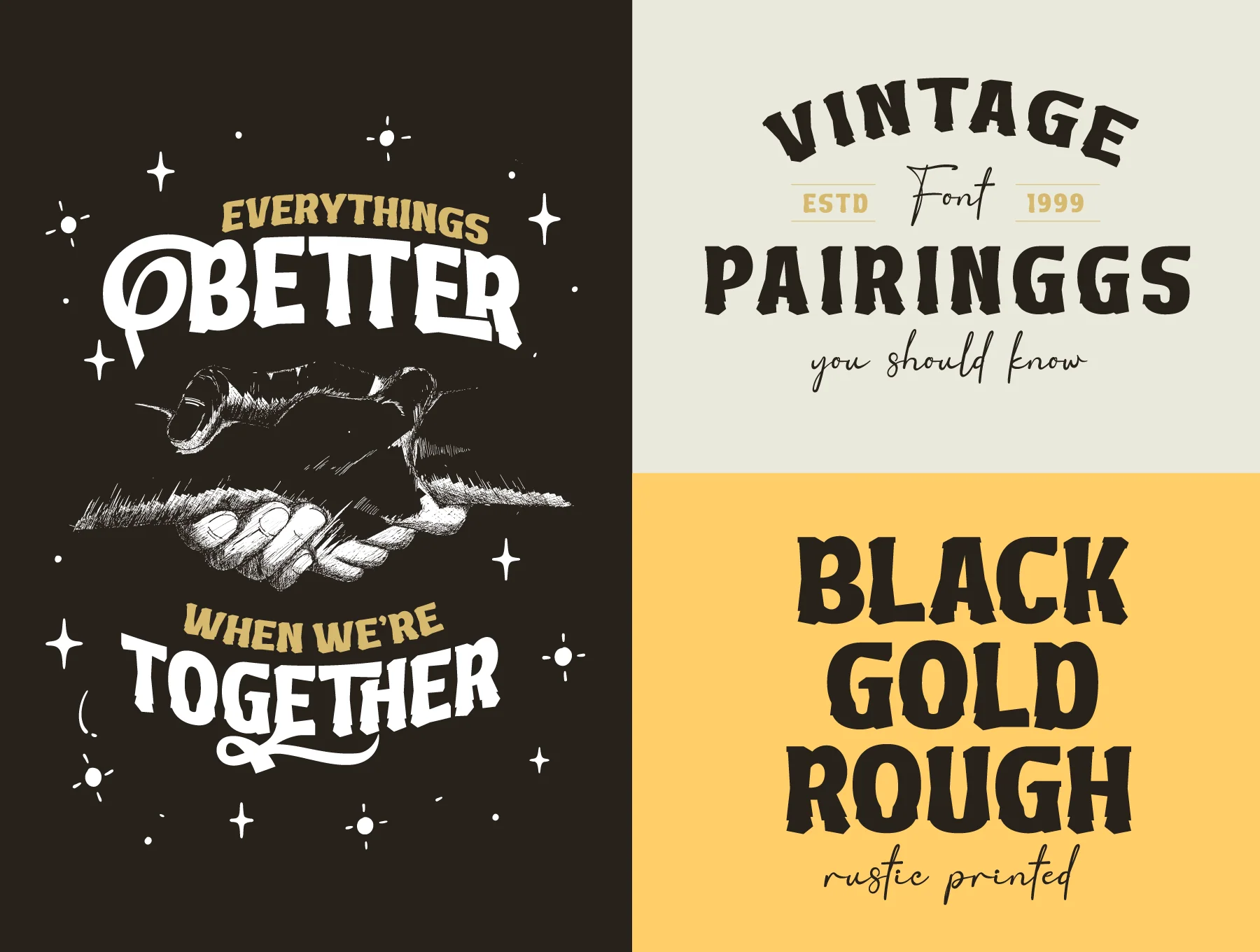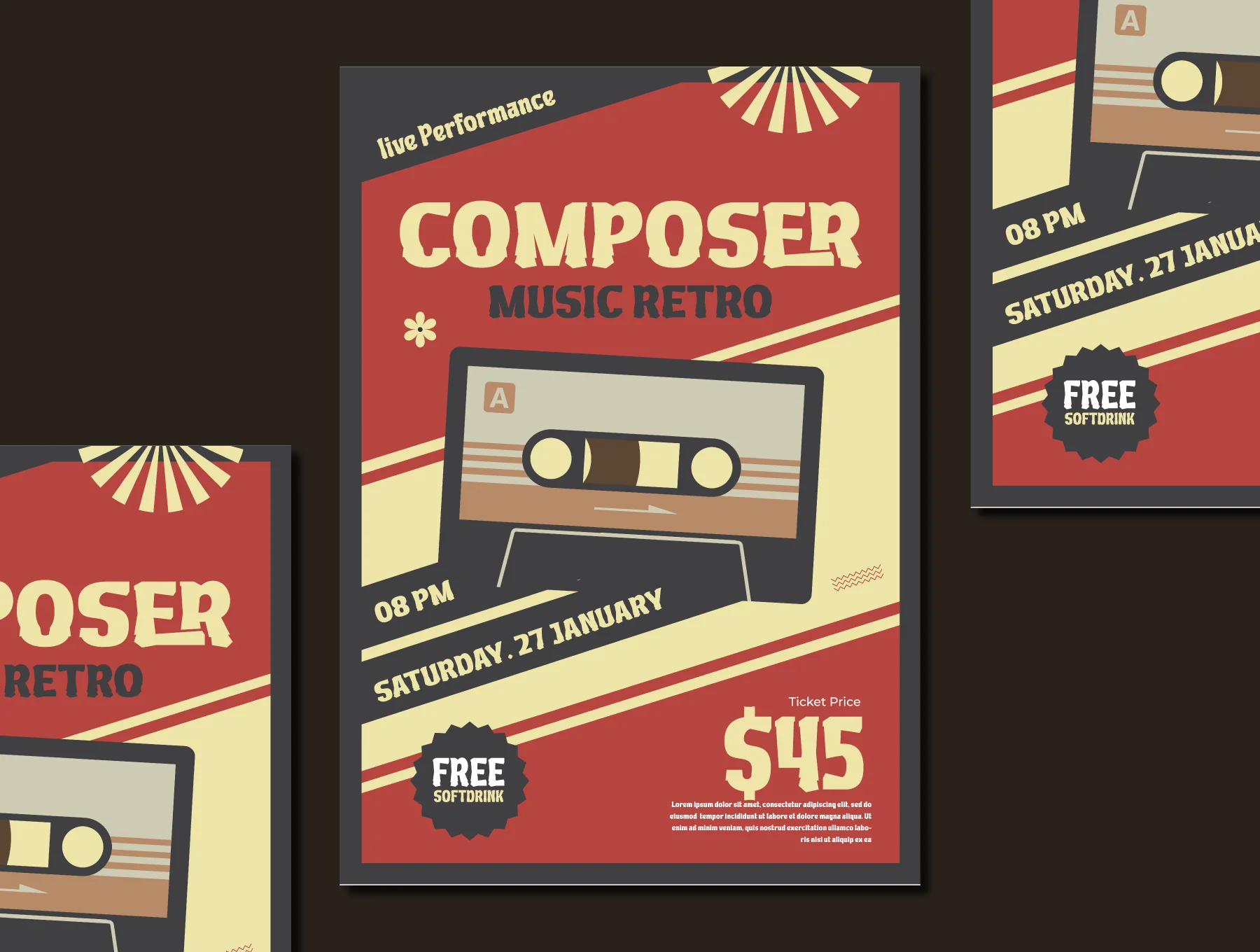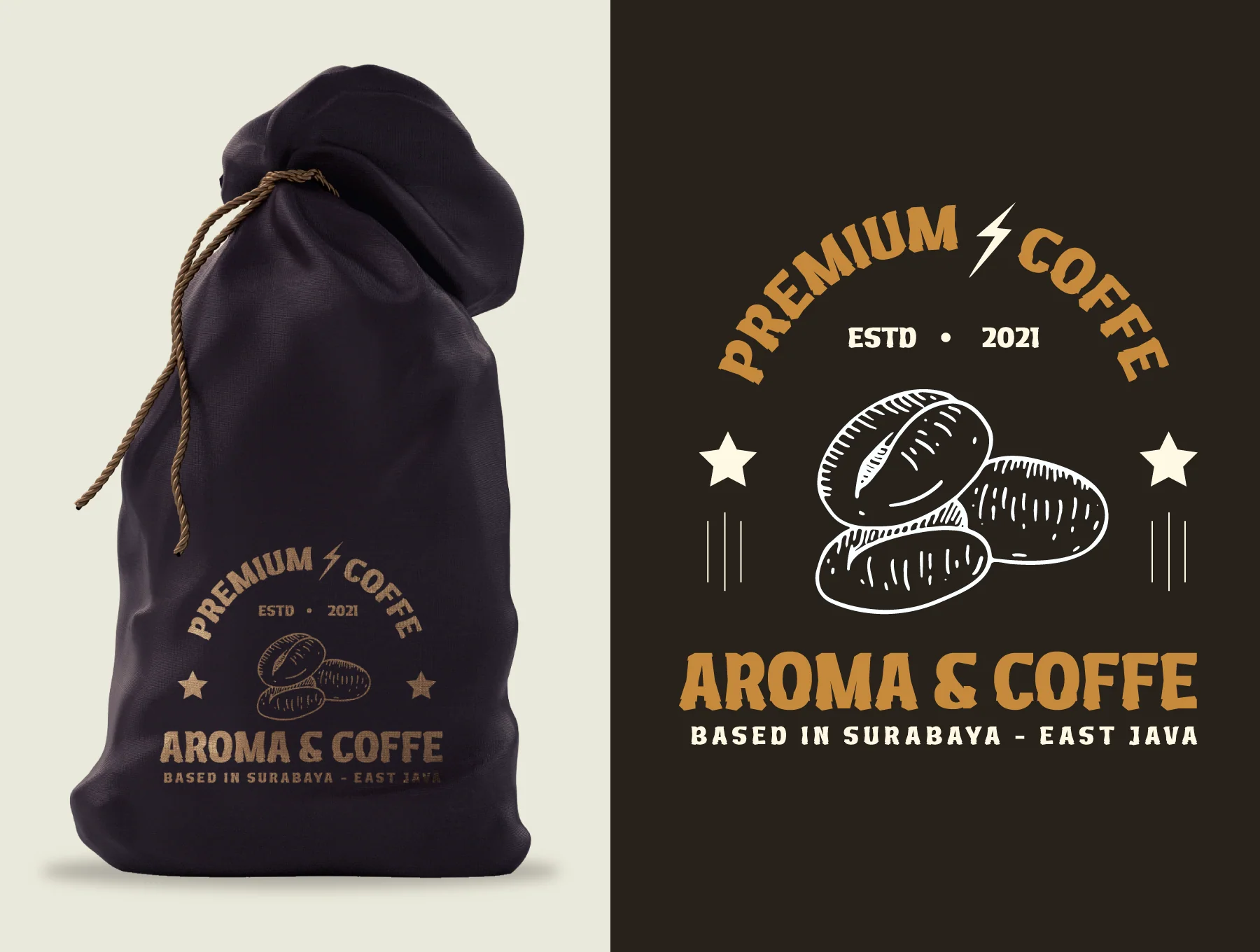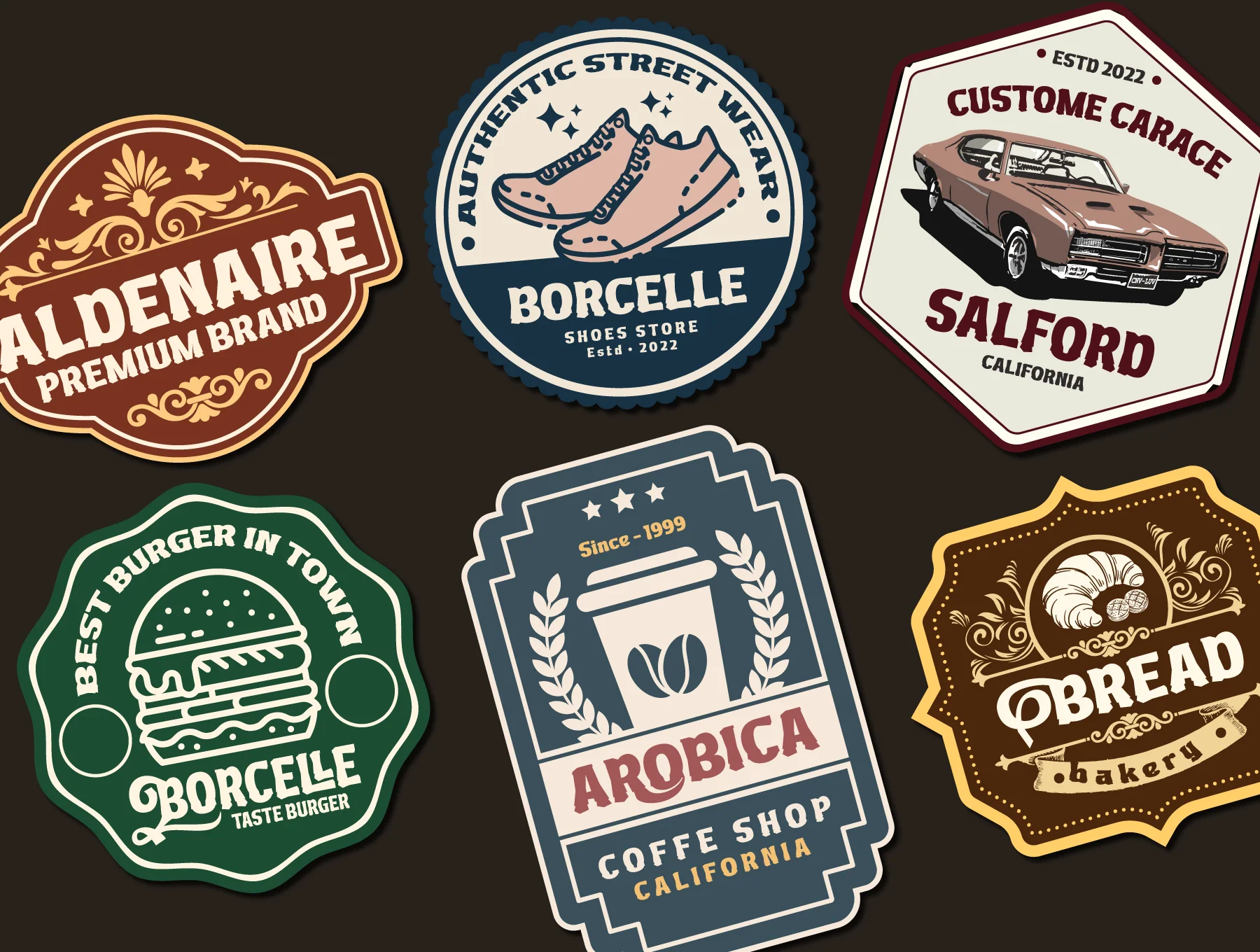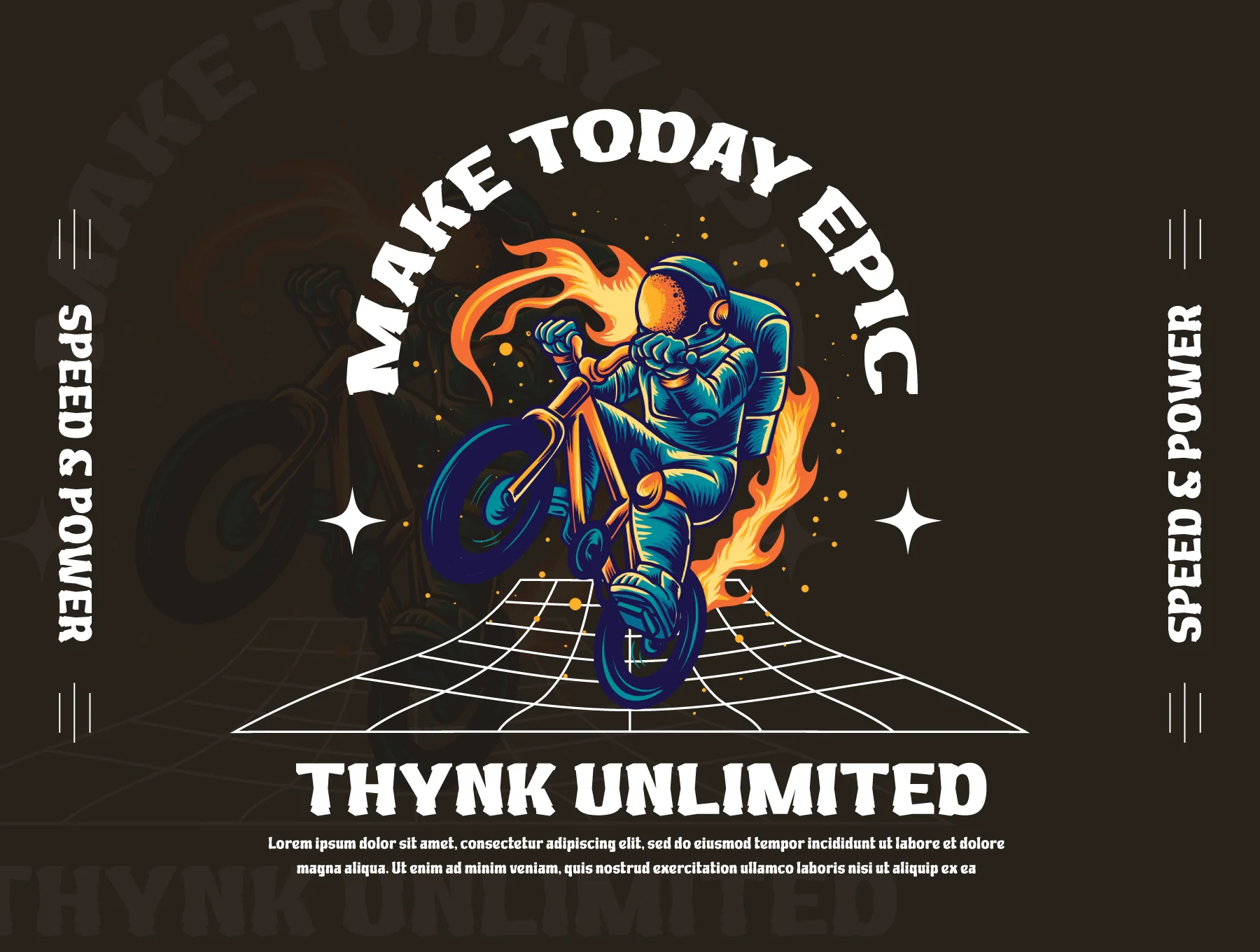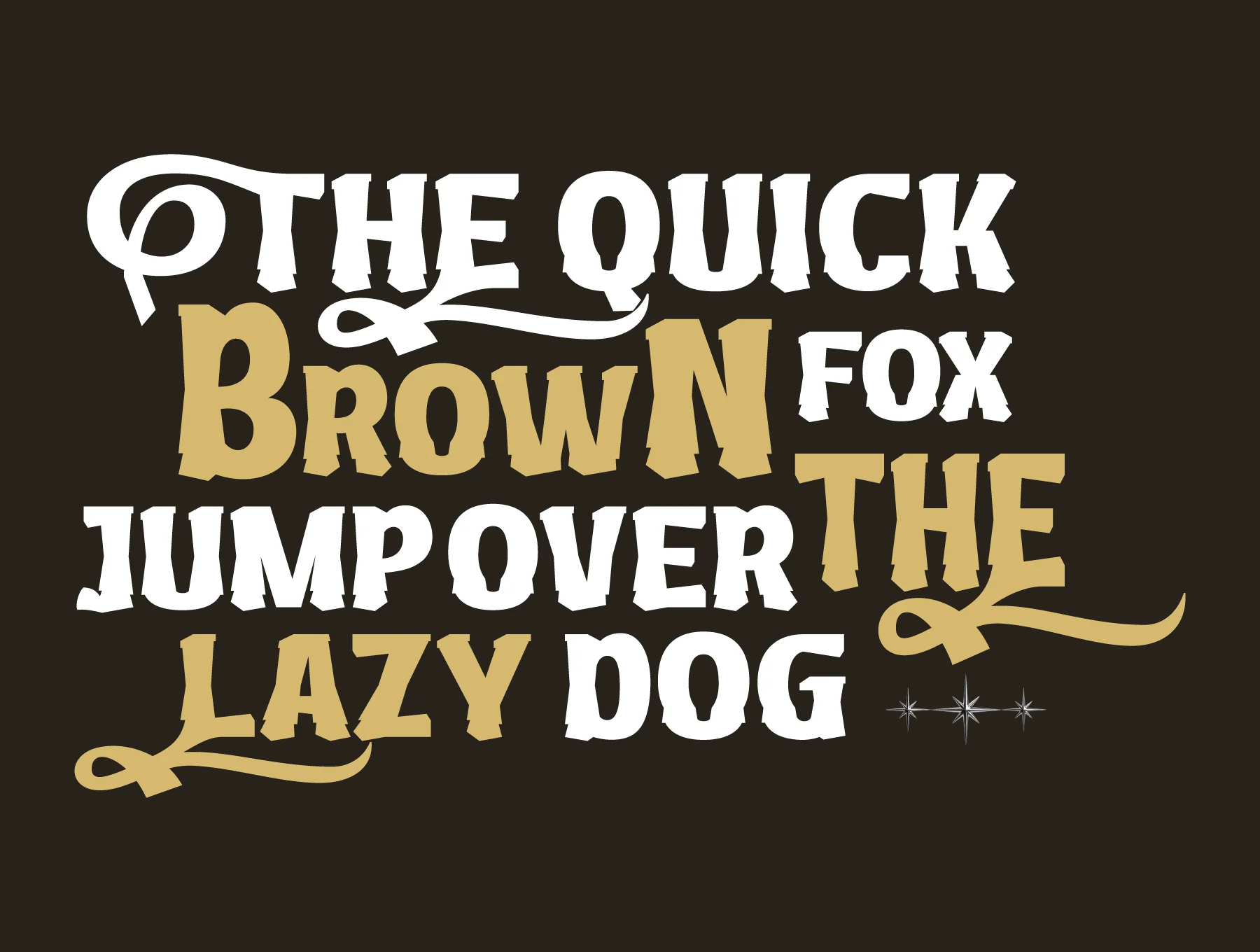
Xutwef | Display Hero Font
Xutwef is a superhero-inspired display font that amplifies bold, powerful messages in your designs.
Complete ISO Latin-1 glyph set
Alternates and ligatures
Meet Xutwef, a superhero-inspired display font built for bold, powerful designs in movies, games, branding, and more. Its striking letters, alternates, ligatures, multilingual support, and PUA encoding help create standout typography. Includes OTF, TTF, WOFF, WOFF2, CSS, HTML, ISO Latin 1 glyphs, and easy setup.